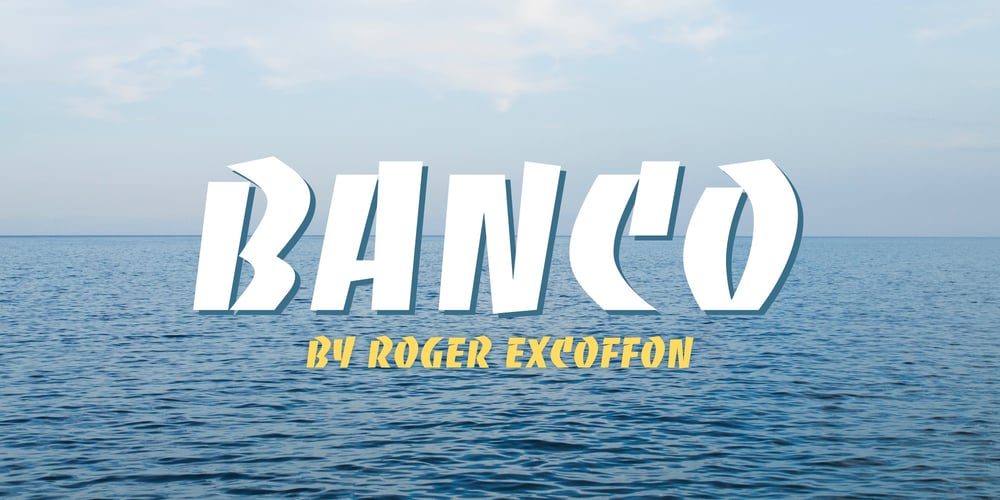
Banco Font Family was designed by Roger Excoffon and published by Linotype. Banco contains 1 styles and family package options. Designed for Linotype Library GMBH and the International Typeface Corporation in 1997 by Phil Grimshaw. Based on bold script Banco designed by French graphic and poster designer Roger Excoffon and released in 1952 by the Fonderie Olive. Originally Banco was an all-caps bold typeface, and the lower case and the corresponding light weight were created for ITC. The tapering slightly slanted strokes of Banco made by sharp-edged flat brush. The face has the effect of being quickly sketched by a powerful hand. For use in advertising and display typography. Cyrillic version developed for ParaType in 2000 by Tagir Safayev.